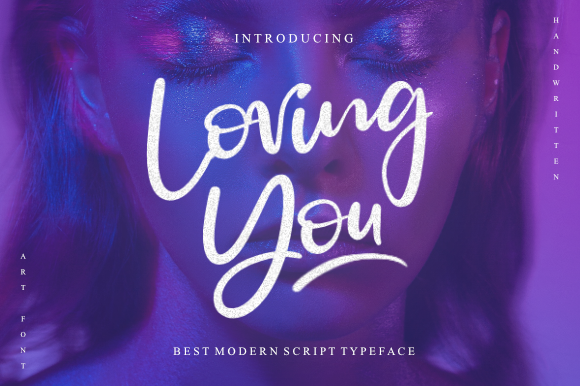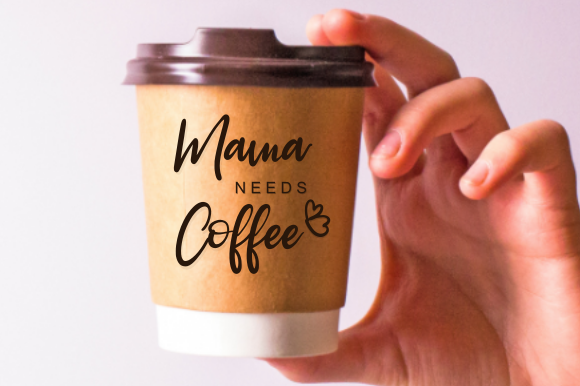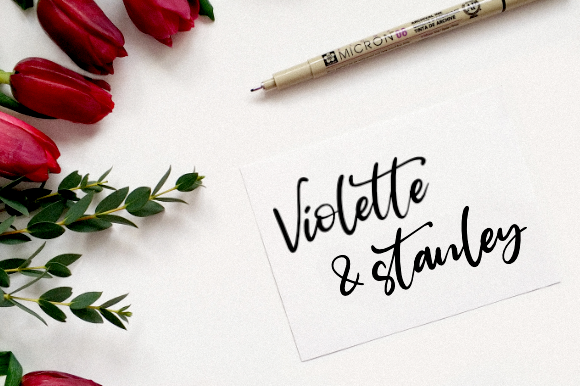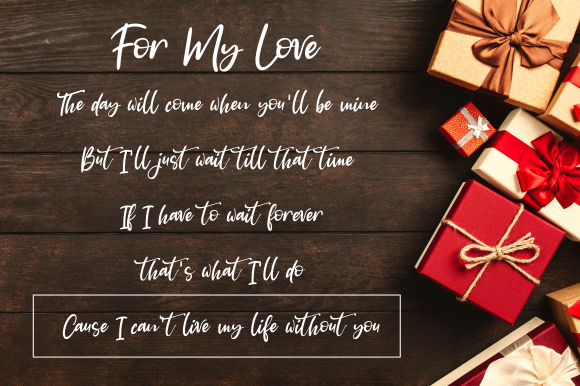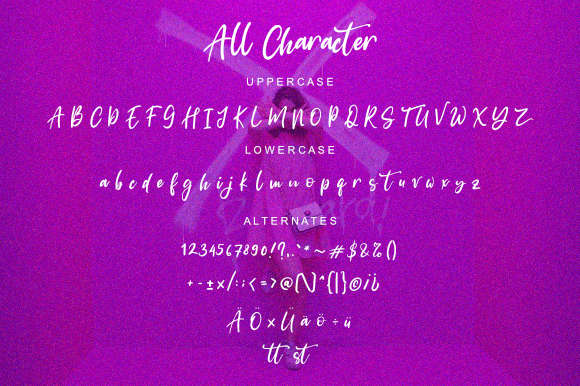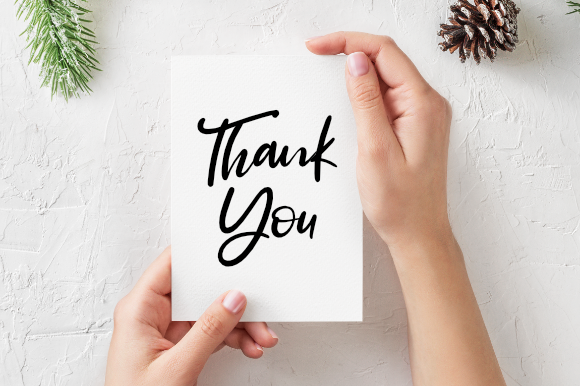
Loving You Font
About Loving You Font
Loving You is inspired by classic typography and brings its own unique style to any design project. This fantastic handwritten font is best suited for headlines of all sizes, as well as for blocks of text that have both maximum and minimum variations. Whether it’s for web, print, moving images or anything else – Loving You will look spectacular.